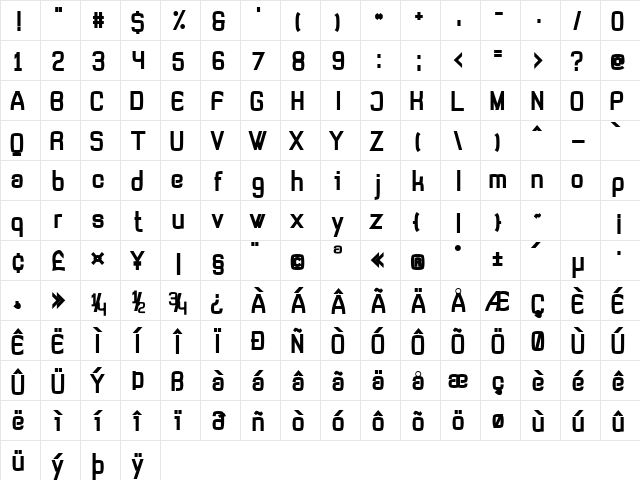
Tevegraphy Bold Free Font
Tevegraphy Bold
Foundry: M￿ Greb￿
Designer: M￿ Greb￿
Design Context for Tevegraphy
Tevegraphy is a composed and adaptable typeface that performs quietly and consistently across a wide range of design contexts. Its bold stroke weight gives it real presence on the page.